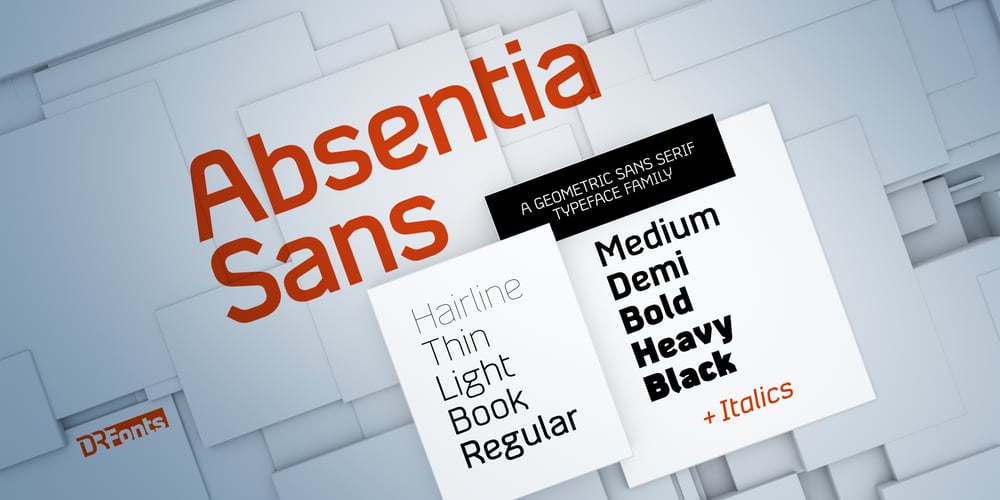
Absentia Sans
Absentia Sans font
Absentia Sans Font Family was designed by Daniel Robichaud and published by DR Fonts. Absentia Sans contains 22 styles and family package options. Absentia Sans is a geometric sans serif typeface with a contemporary appeal. Available in ten weights with matching italics, the family also includes two variable fonts. The construction of the glyphs defines their style: a harmony of lines, curves and angles. Tight radius stroke transitions and slanted finials underpin the structural approach and modern aesthetic. Conversely, the curved and tapered terminal of lowercase ‘l’ is a nod to traditional calligraphy. This unique style, as well as the distinctive layout of such letters as ‘A’, ‘Q’ and ‘g’ help the family stand out in a crowd of sans serif alternatives. Its versatility lends itself to a wide range of applications, from industrial and futuristic to elegant and sophisticated. A finely tuned design and generous x-height promote legibility at any size. Absentia Sans offers a flexible solution to today’s typographic needs, for all platforms from the page to the screen.